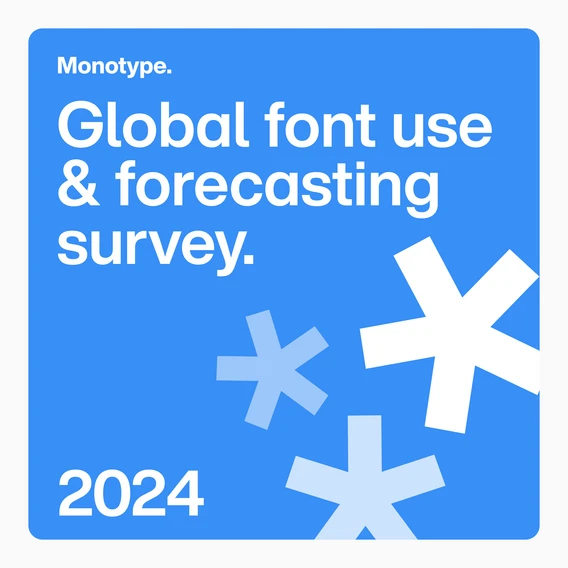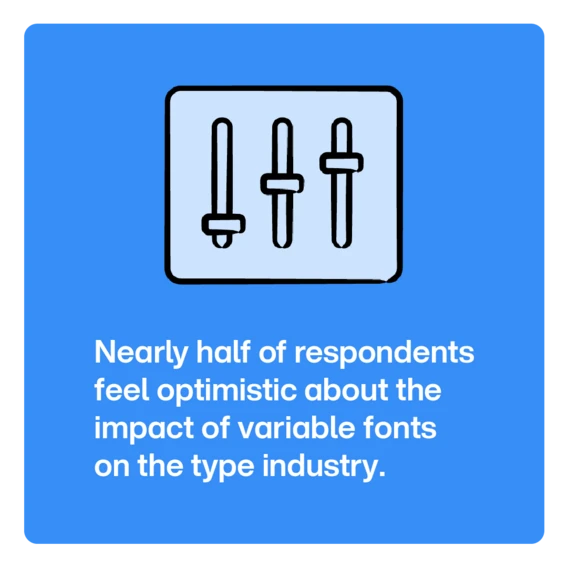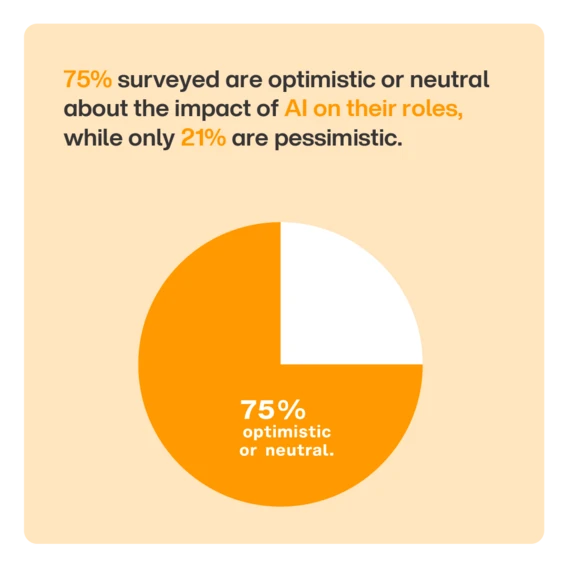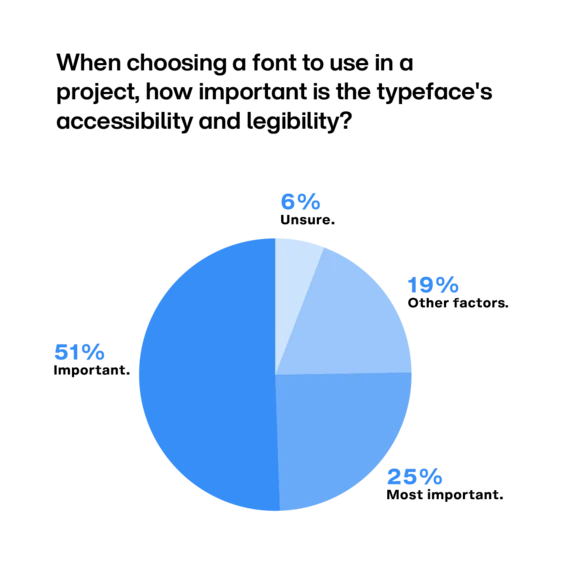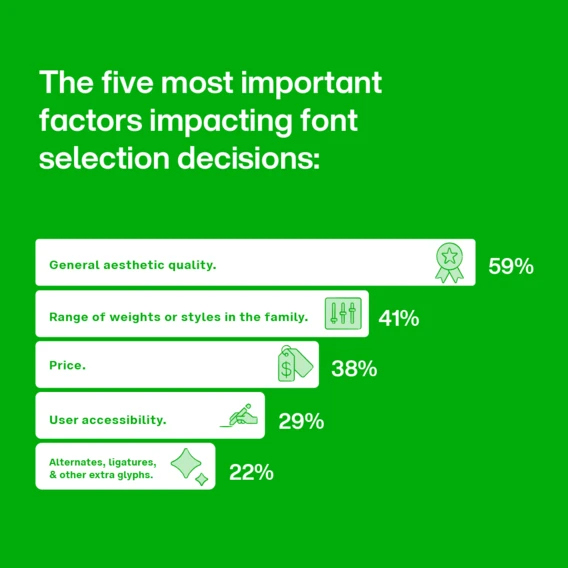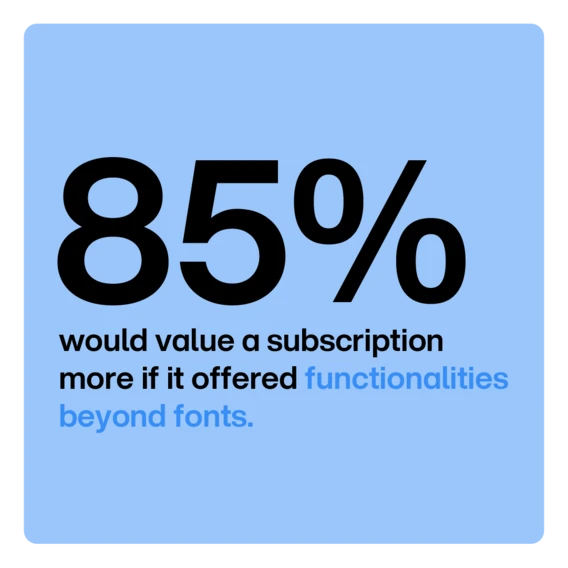
Discover the future of fonts: 2024 Font Use & Forecasting Survey.
Welcome to the 2024 Font Use & Forecasting Survey Report, where we dive deep into the current trends, challenges, and innovations shaping the global design industry. Conducted by Monotype in collaboration with independent market research company Censuswide, this extensive survey offers insights into the evolving world of typography.
While fonts remain a staple in design and branding, their influence evolves with changes in technology and creative approaches. We hope these insights help brands in planning ahead, spotting new opportunities, and answering key questions about font purchasing habits.
Gain insights to:
Font selection priorities.
Understand why 76% of designers prioritize readability and accessibility, and discover the characteristics that make sans serif the top choice for creatives.
Purchasing trends.
Explore how 70% of creatives turn to popular marketplaces for font purchases and the impact of budget constraints on font acquisition.
Licensing and management.
Delve into the complexities of font licensing; 47% of respondents cited that it’s challenging to navigate and manage.
The rise of font subscriptions.
68% of participants using font subscription services; learn how these models simplify font management and enhance creative workflows.
AI in typography.
Discover how AI is gradually transforming the type industry, aiding in font visualization and pairing, while leaving the creative work to the designers.
Variable fonts.
Gain insights into the growing interest in variable fonts, offering flexibility and efficiency in design projects.
Why fonts matter.
Typography is more than just design; it plays a critical role in branding and communication. With 83% of designers acknowledging its importance, the survey highlights the need for distinct and memorable font styles in brand identity.